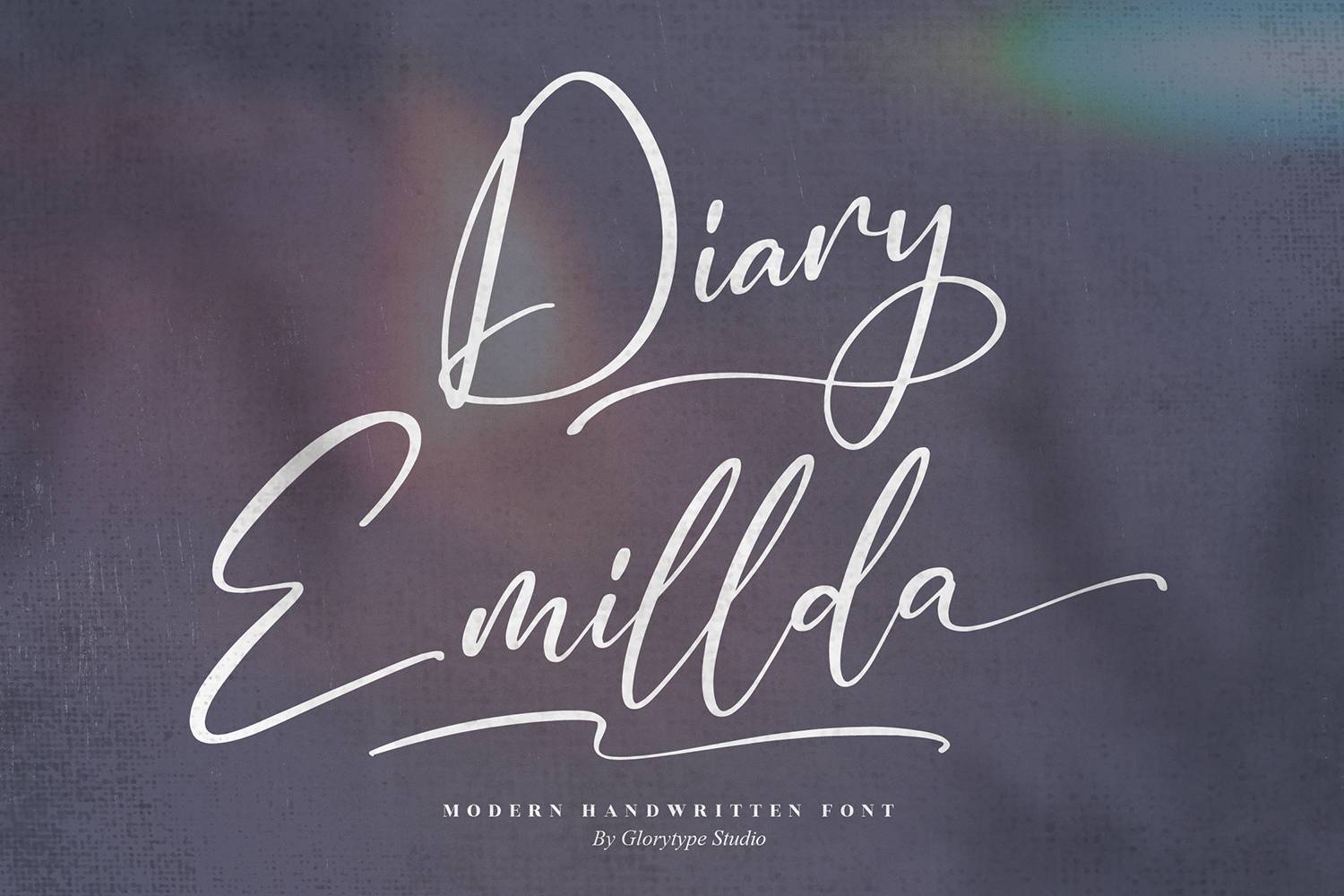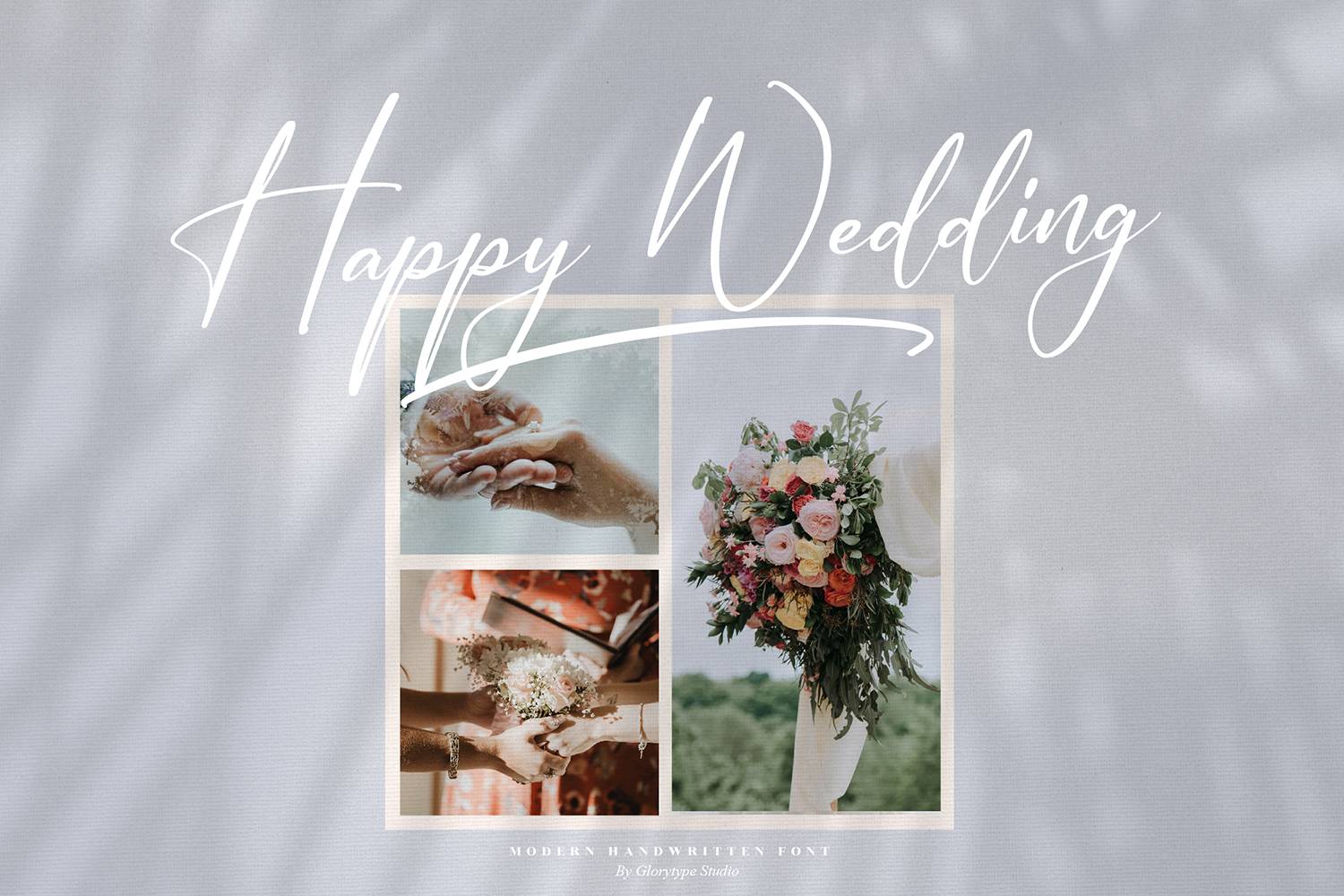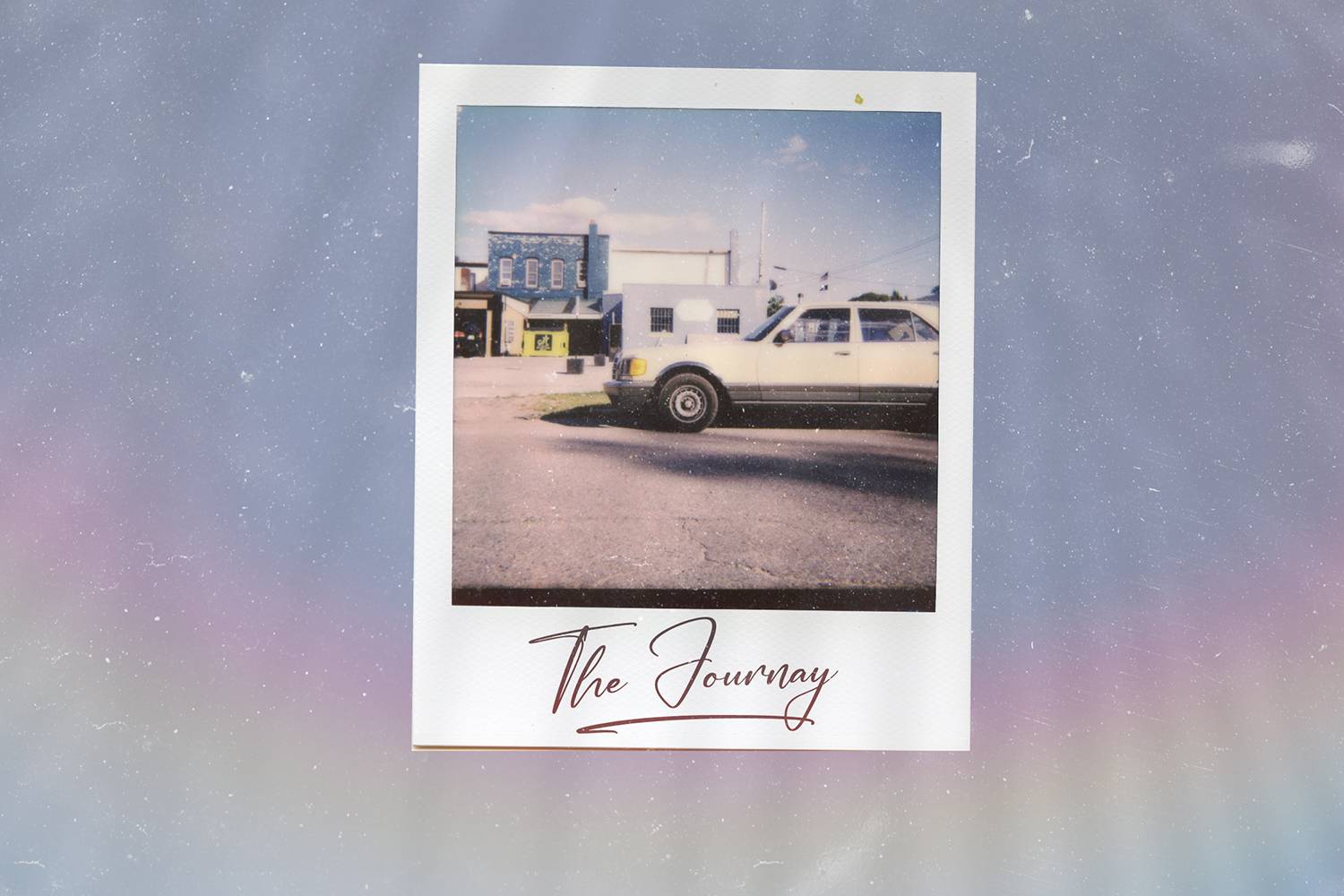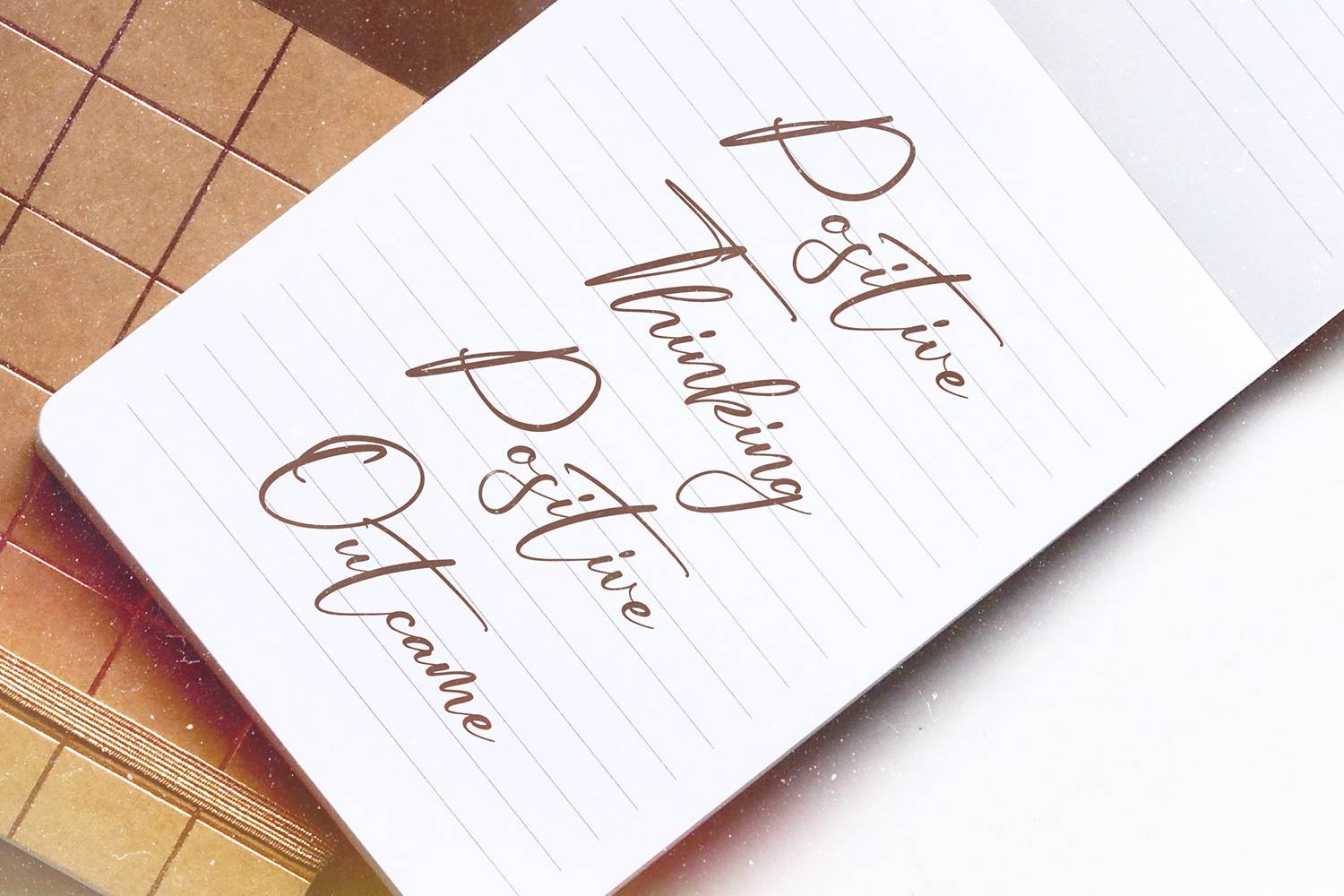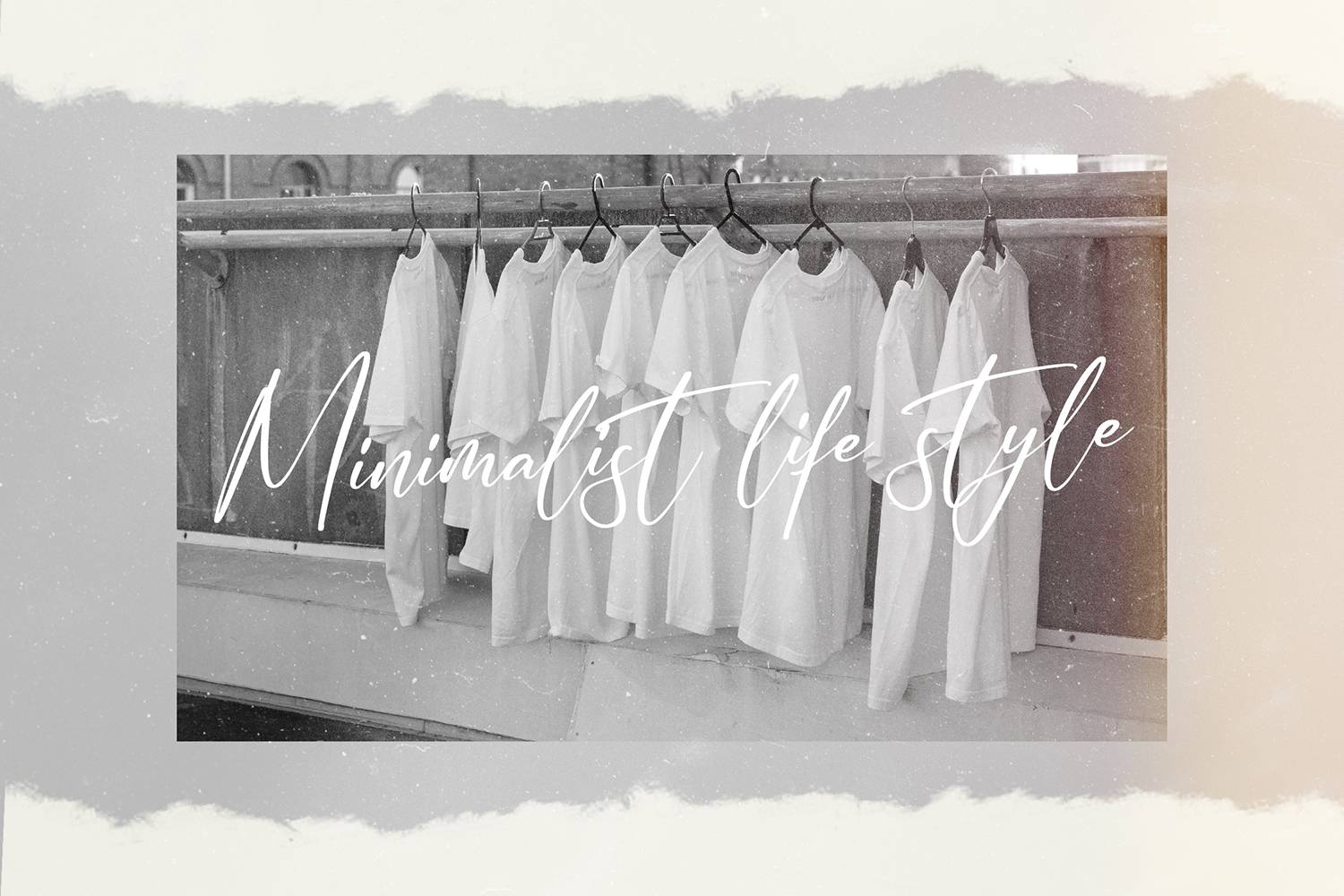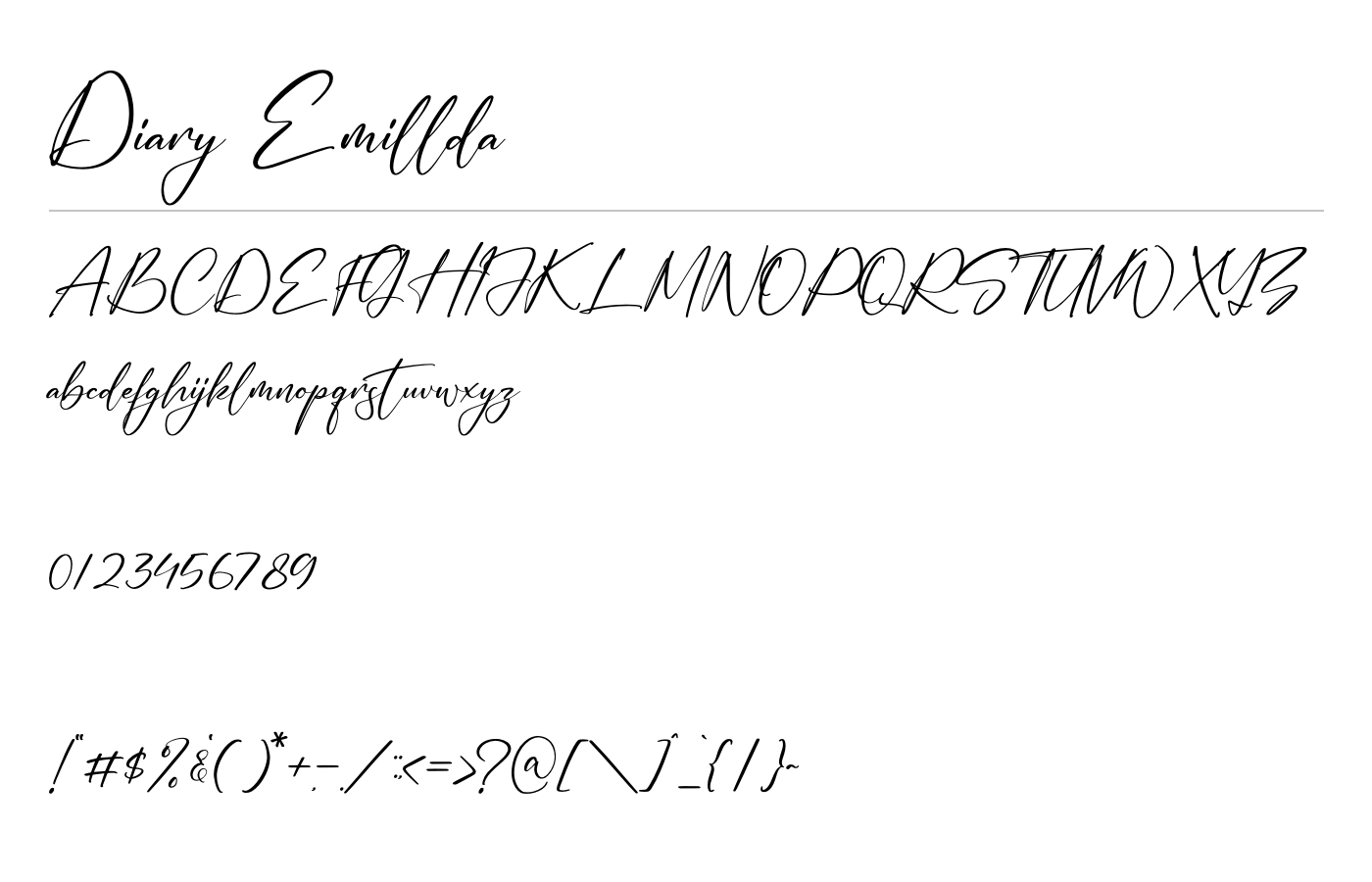
Diary Emillda is a delicate, handwritten script font with a light and airy feel, characterized by its slender, flowing strokes and elegant curves. Its tall x-height and smooth, natural lines create a personal and intimate style, perfect for invitations, branding, and editorial designs that seek a stylish yet approachable look. This font’s refined, casual elegance makes it ideal for fashion, lifestyle, and creative projects aiming to convey warmth and sophistication.
Diary Emillda Font
About Diary Emillda Font